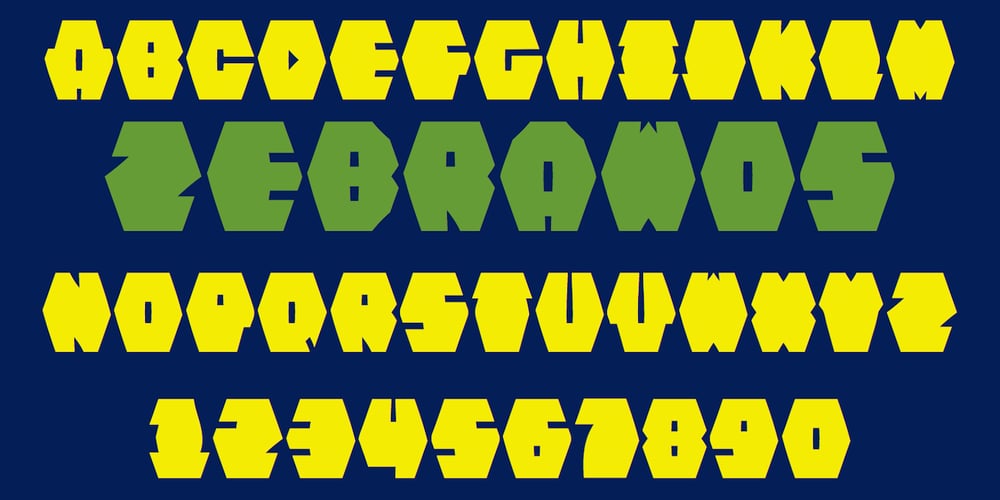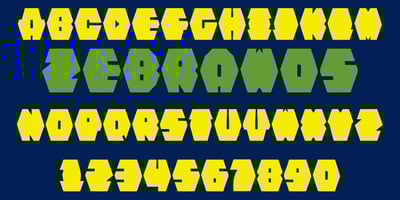
Zebraw
Zebraw font
Zebraw Font Family was designed by Robert Schenk and published by Ingrimayne Type. Zebraw contains 2 styles and family package options. This face was part of a continuing evolution of an almost unreadable typeface. There are two styles, one with stripes and one without. The striped style can be placed in a layer above the unstriped style to give the letters two colors. Zebraw was derived from the typeface Porker.